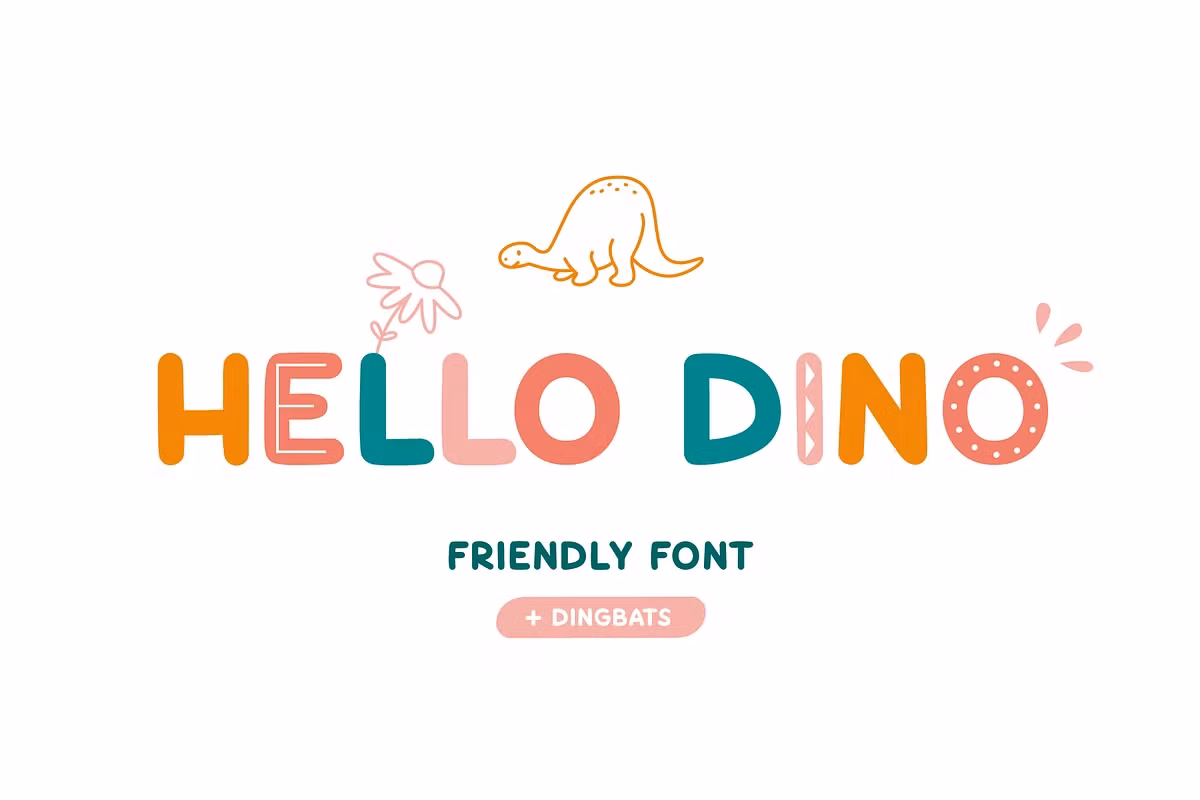
You must purchase this font for commercial use. However, you can download Hello Dino | Friendly Font Free Download for testing purposes. Hello Dino is a cheerful, playful font designed to bring a friendly and inviting vibe to your designs. With its rounded edges and whimsical style, this font is perfect for children's designs, playful logos, greeting cards, posters, and social media graphics.
The friendly letterforms and approachable aesthetic make Hello Dino ideal for creating designs that need a warm, fun, and light-hearted feel. Whether you're designing for a kids' brand, a casual event, or a quirky product, this font adds personality and charm to your typography.